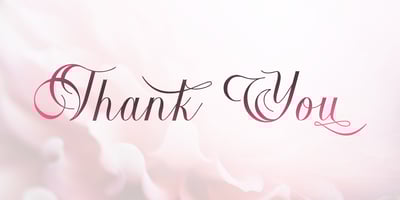
Werklust Font Family was designed by Yean Aguste and published by HandletterYean. Werklust contains 4 styles and family package options. Werklust is inspired by classic script calligraphy style, it is a stunning script font with a romantic feel. Fall in love with its bold swashes, and turn any design project into a standout. Werklust (Dutch) in English means the term of “zest for work” which comes from the expression “zest for life” and can roughly be interpreted as the degree of enthusiasm and satisfaction with the present work situation. Zest is an emotional capacity involving a strong will-power. When we invest in zestful practices, we experience gratitude, hope, and love from the inside. Be zestful, be werklust!